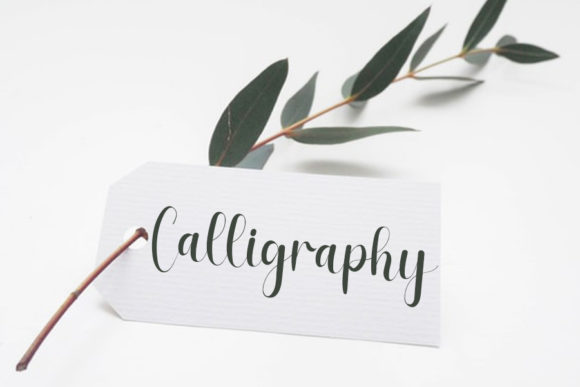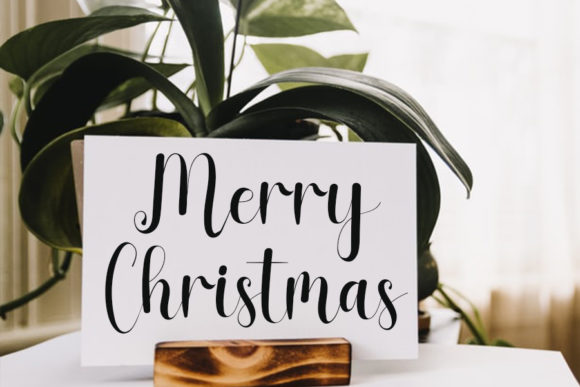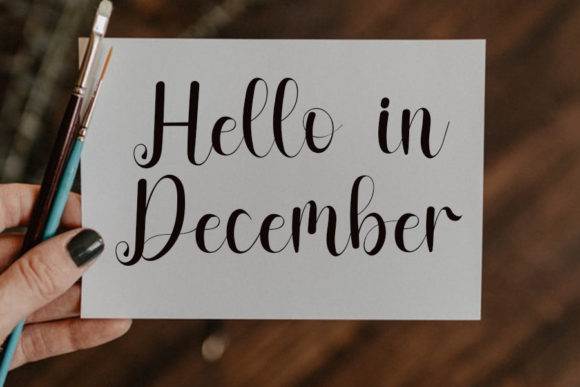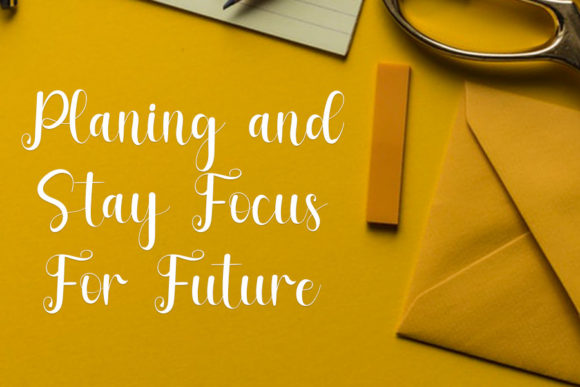
Christmas is a casual handwritten font, carefully designed to become a true favorite. It maintains its classy calligraphic influences while feeling contemporary and fresh. Fall in love with it and bring your projects to the highest levels!